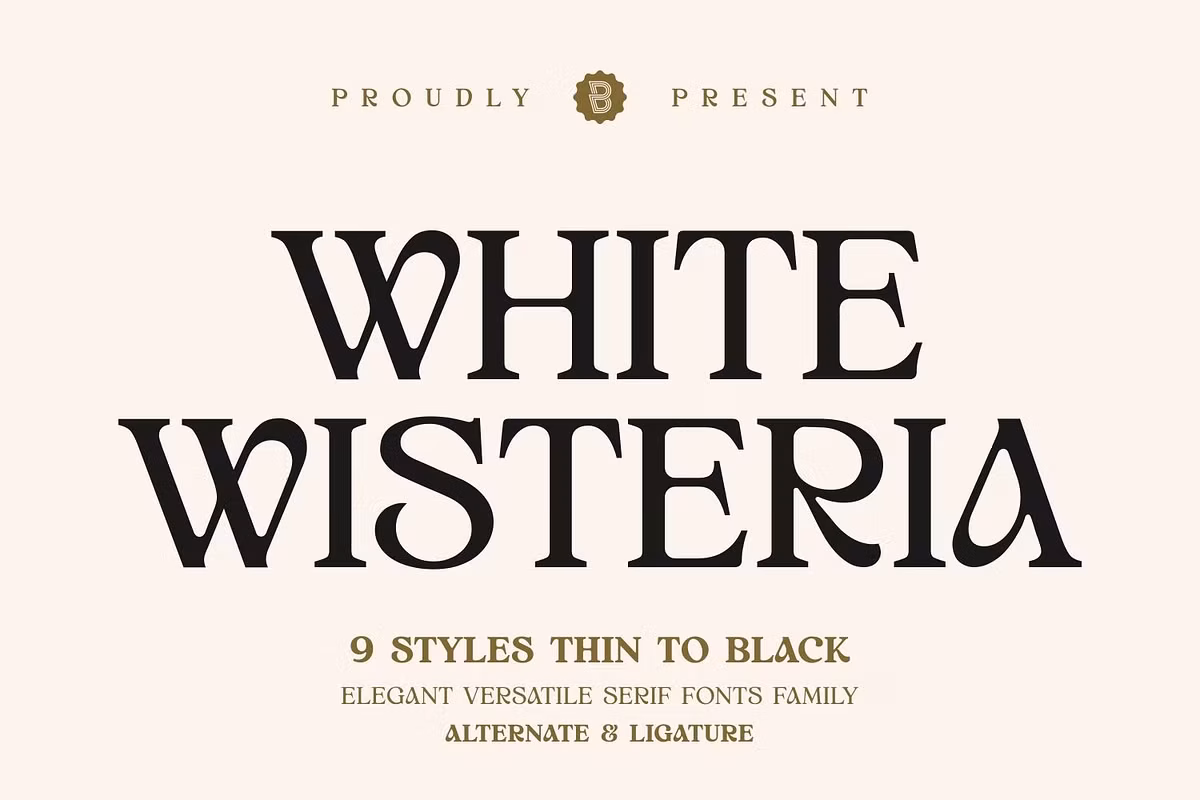
White Wisteria Fonts Family Free Download is a beautifully designed font family that offers a sophisticated mix of elegant serif and script fonts. With a variety of weights and styles, White Wisteria is perfect for a wide range of creative projects, including logos, branding, invitations, editorial designs, and more. Its graceful letterforms and timeless style provide an upscale, professional look that works beautifully across both digital and print media.